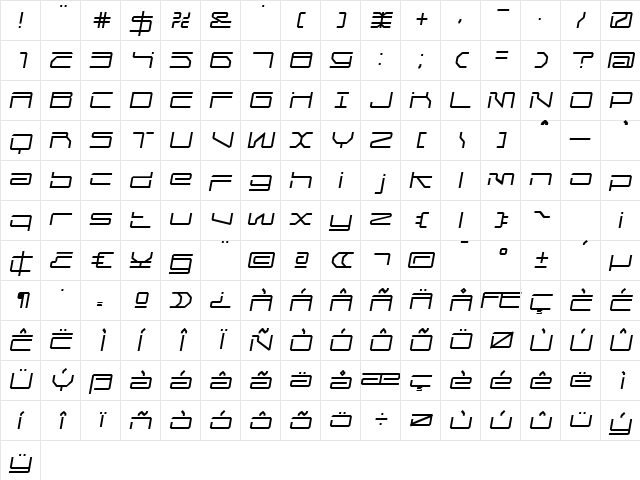
MechwarThin Oblique Regular Free Font
MechwarThin Oblique Regular
Design Context for MechwarThin Oblique
MechwarThin Oblique is a composed and adaptable typeface that performs quietly and consistently across a wide range of design contexts. The slanted form adds forward momentum and visual energy. Its slender proportions lend an understated elegance to any composition.